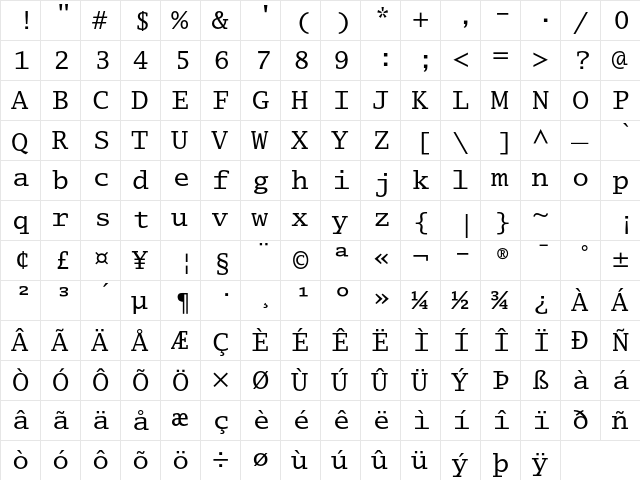
Lucida Typewriter Std Regular Font Preview
Lucida Typewriter Std Regular
Lucida Typewriter Std Regular Font Details
| Designer | Charles Bigelow, Kris Holmes |
Design Context for Lucida Typewriter Std Typeface
Lucida Typewriter Std brings the precise, column-aligned rhythm of monospaced typography to designs that value technical clarity and systematic order.